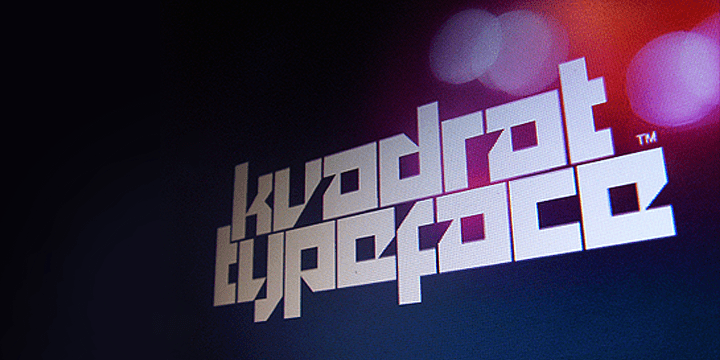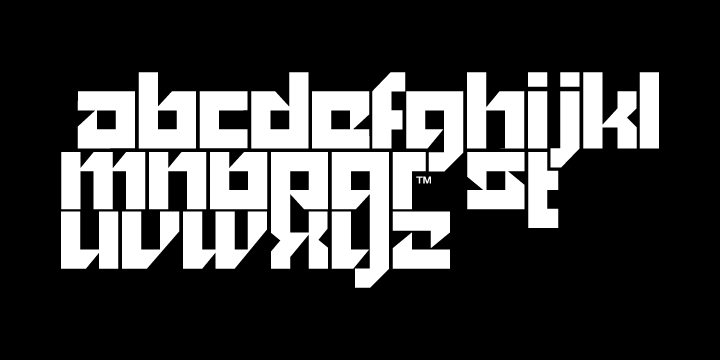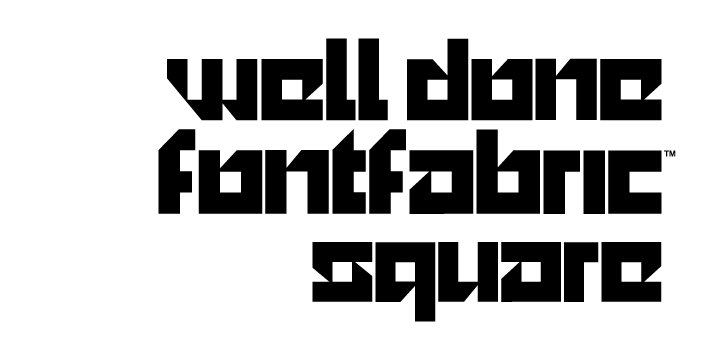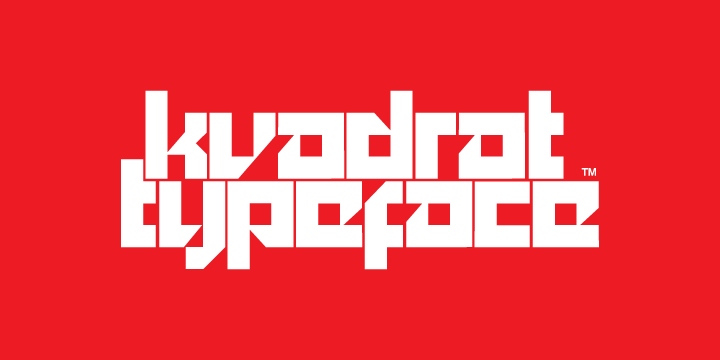
Kvant
Font Family by Fontfabric
Kvant is a custom font which is applicable for any type of graphic design - web, print, motion graphics etc. and perfect for t-shirts and logos.